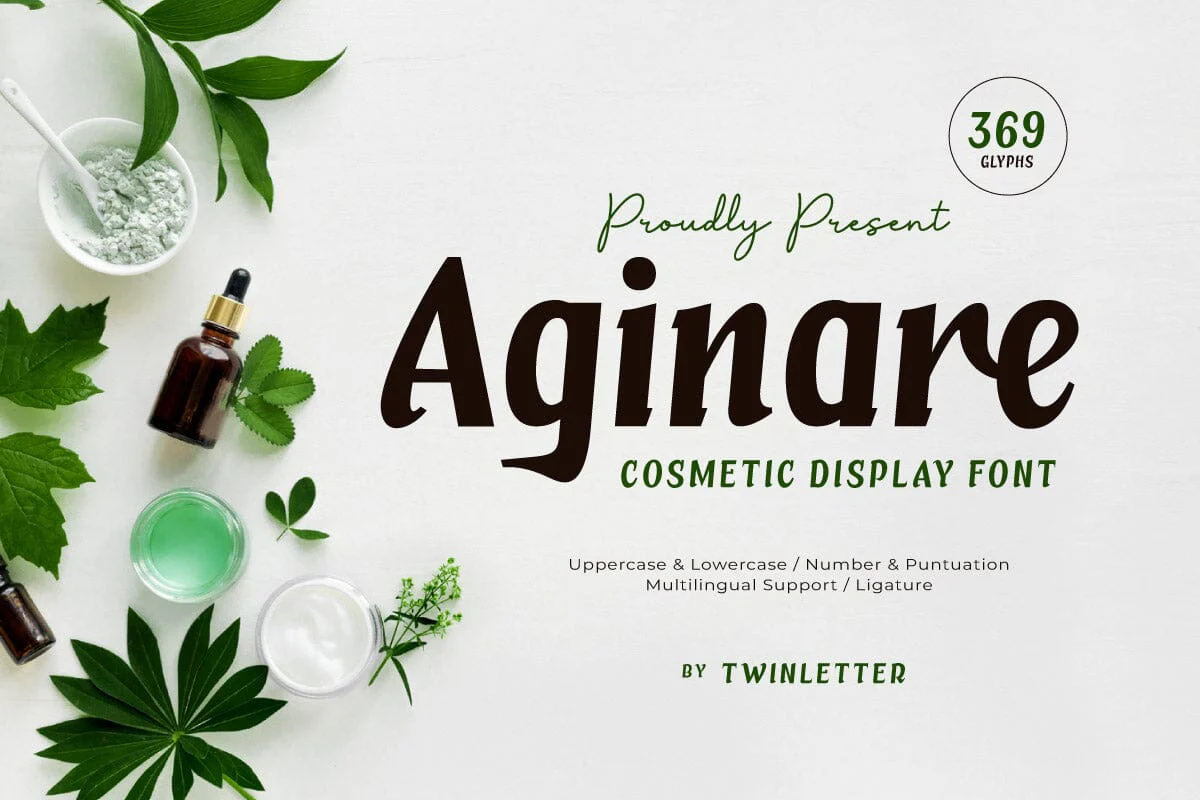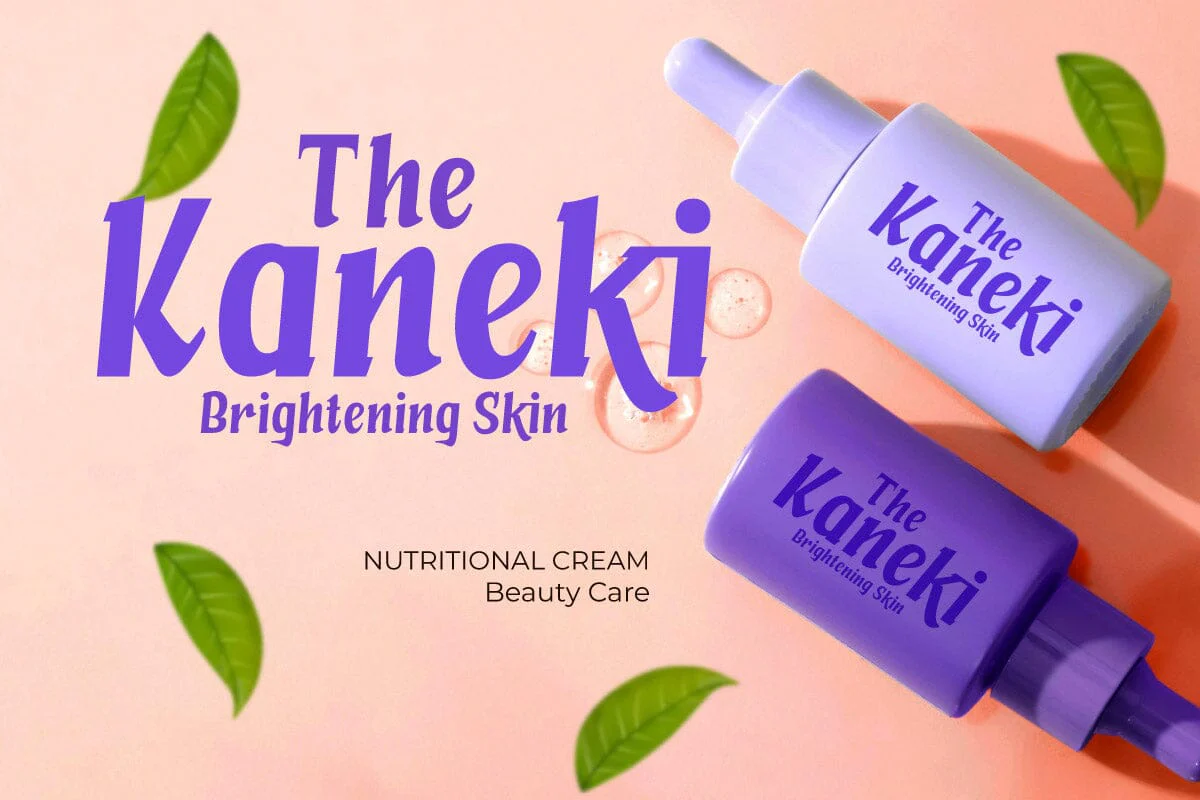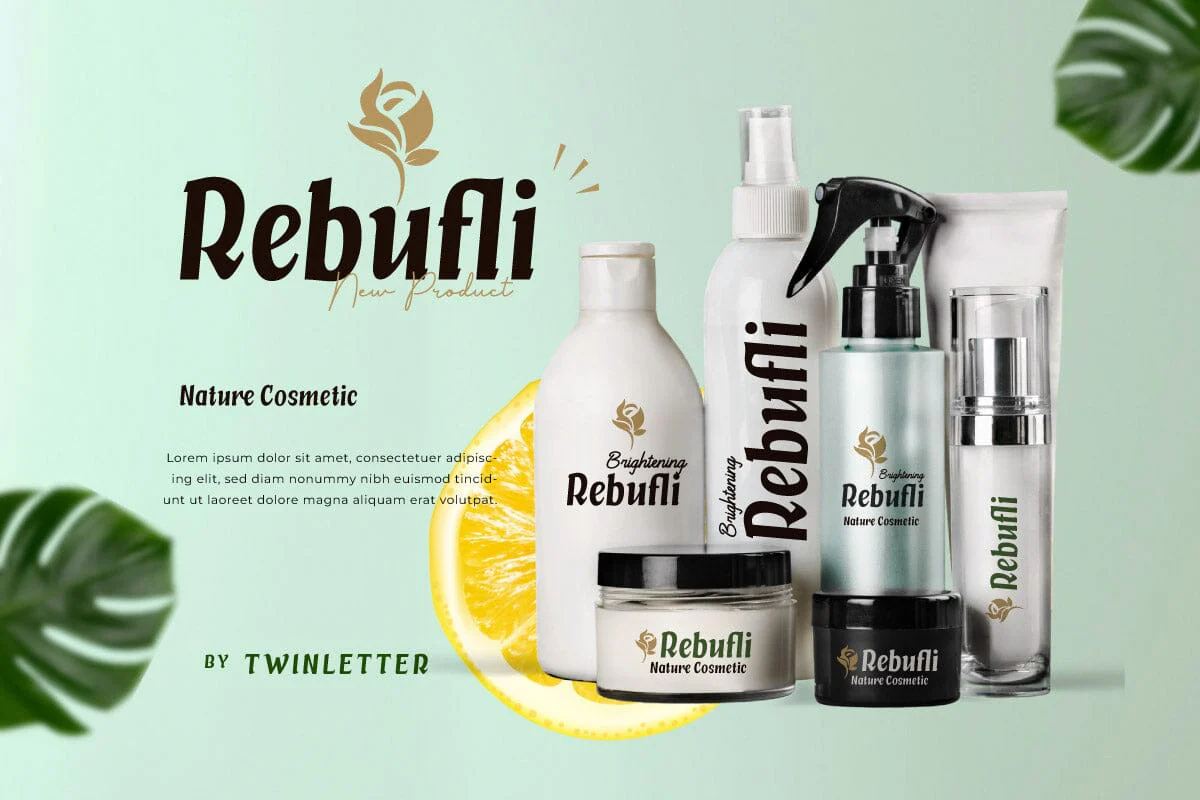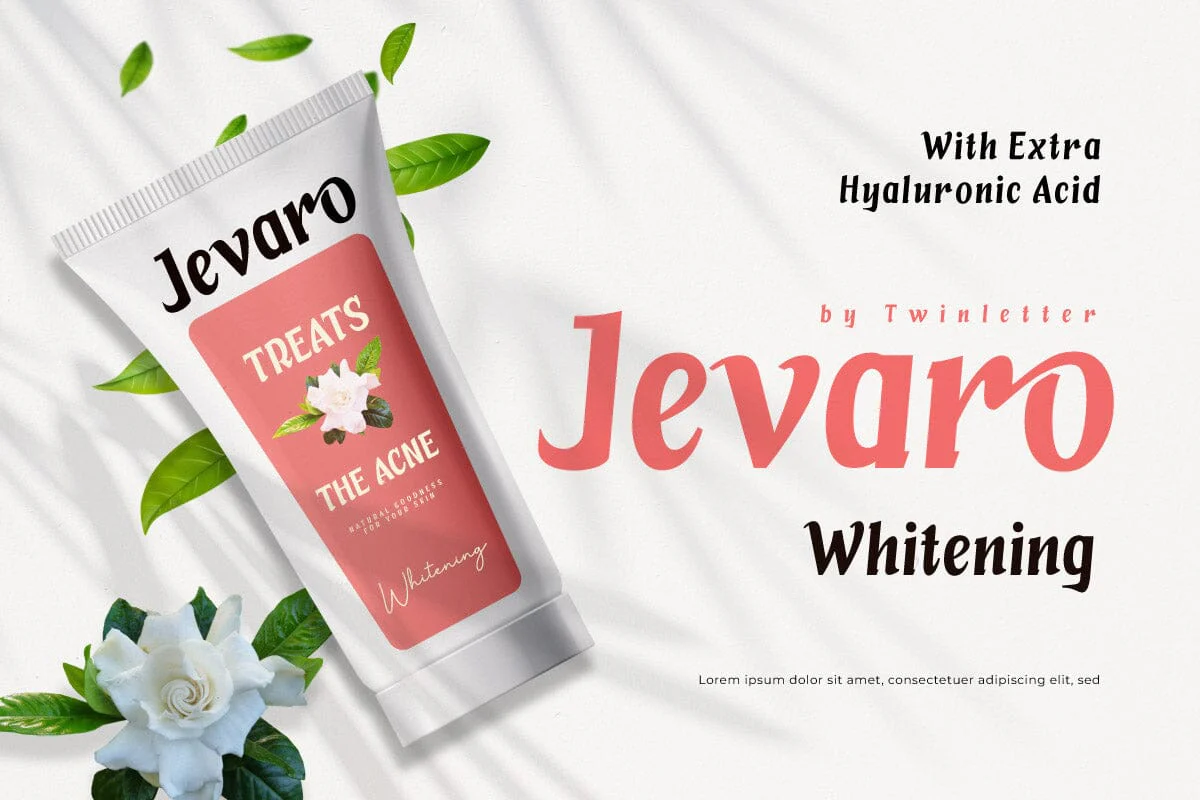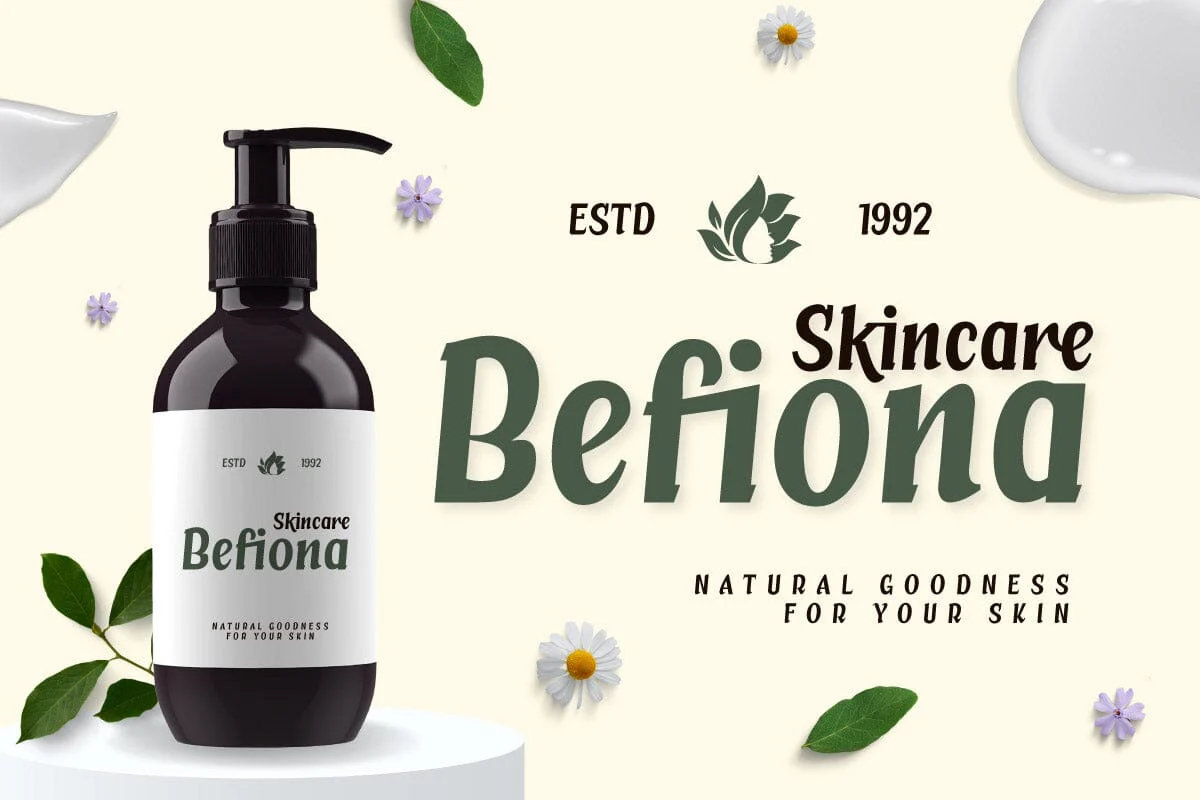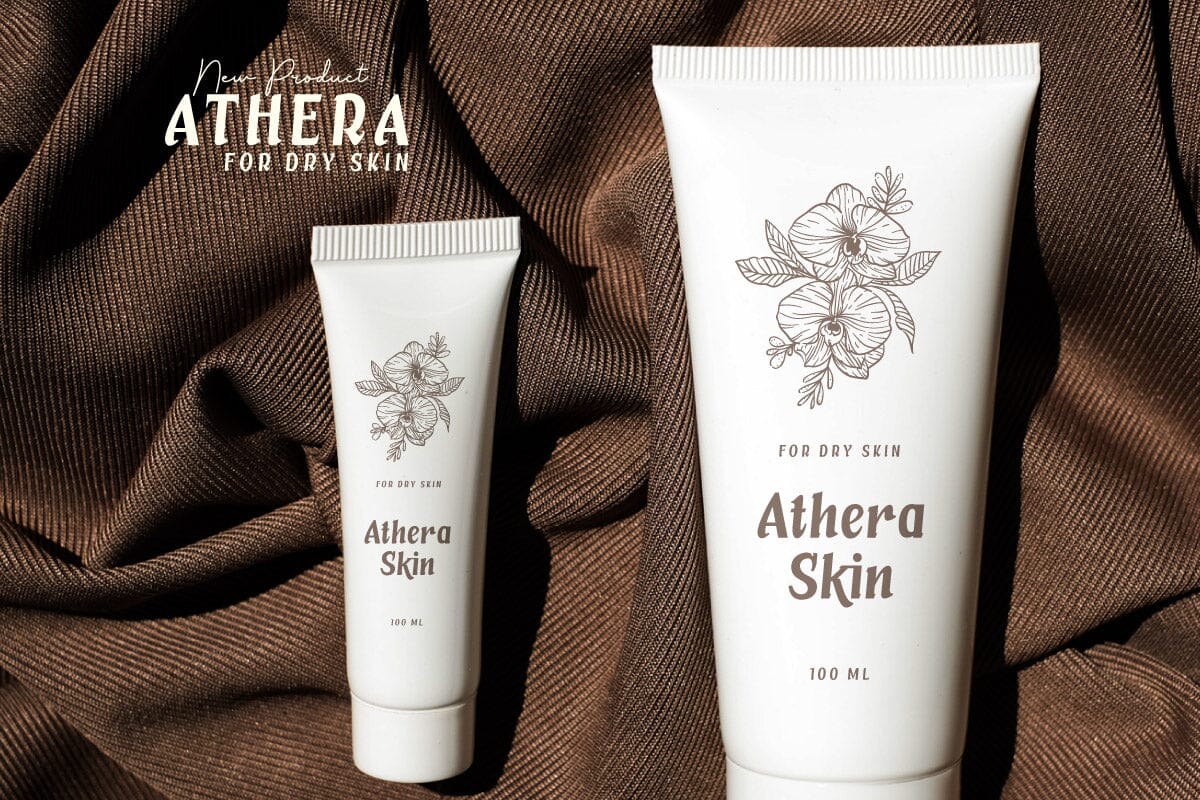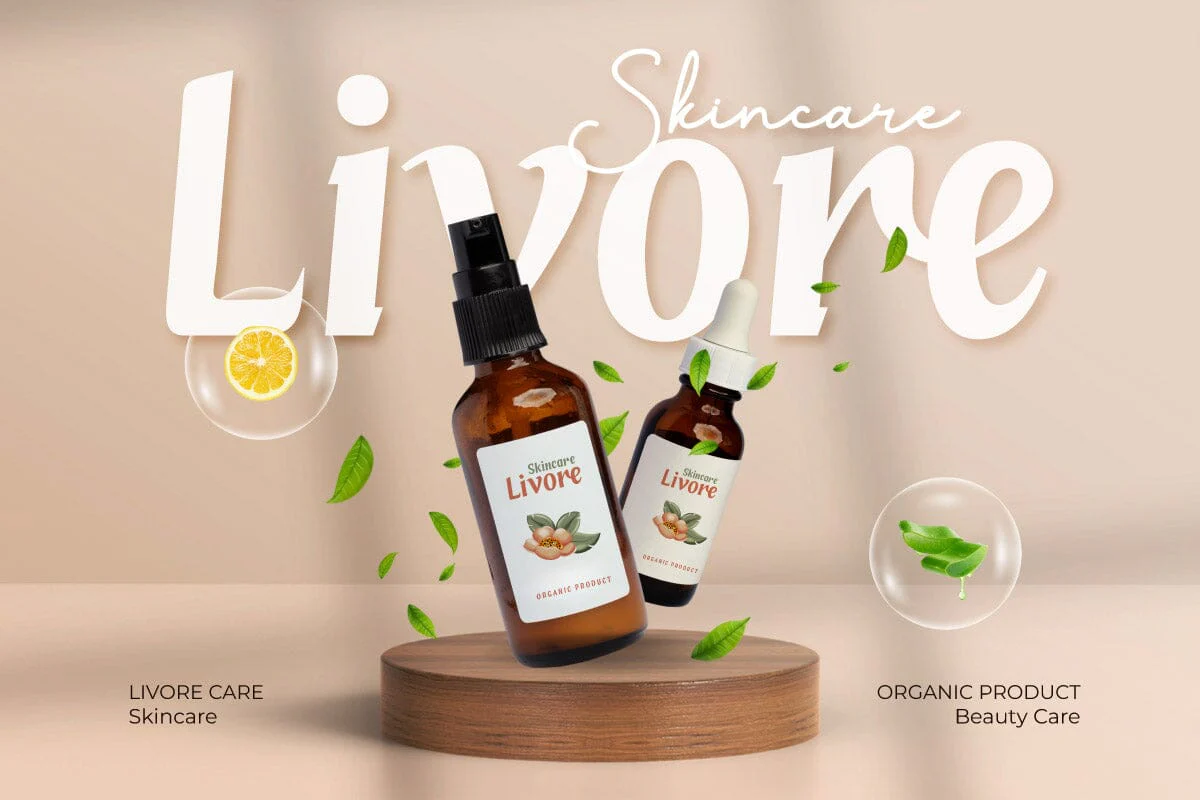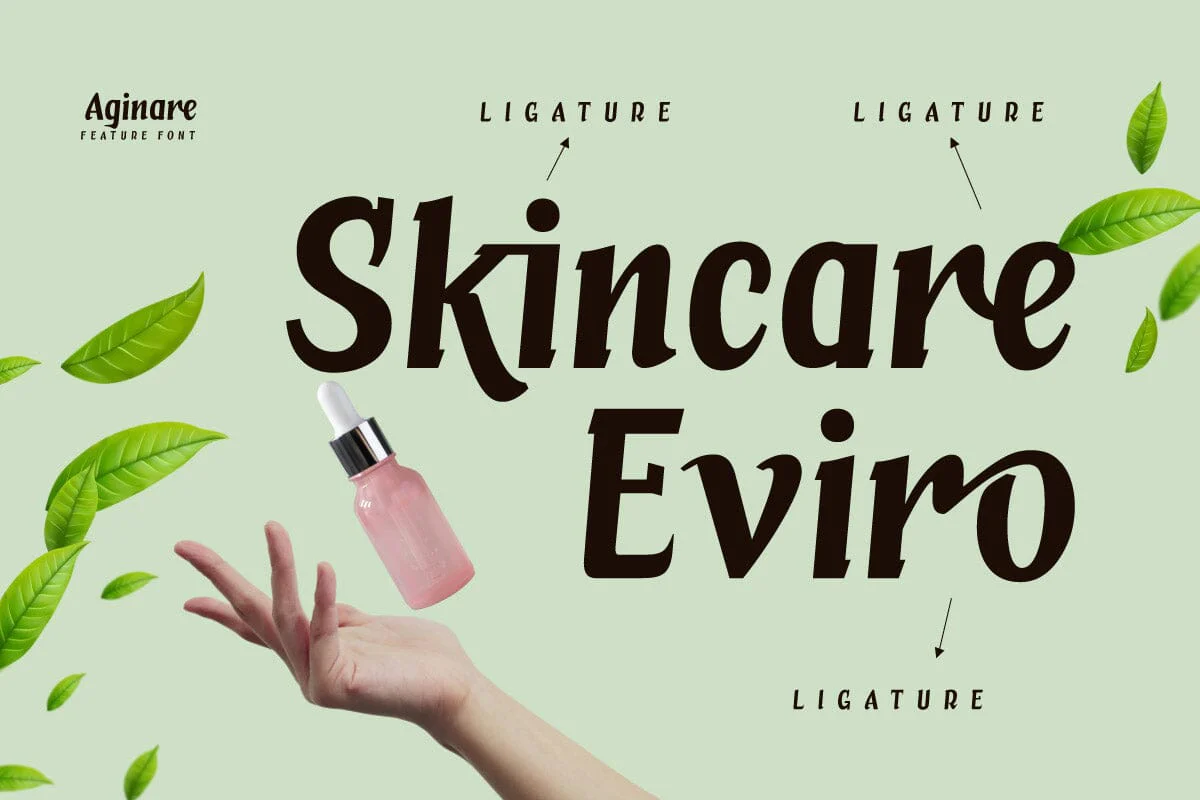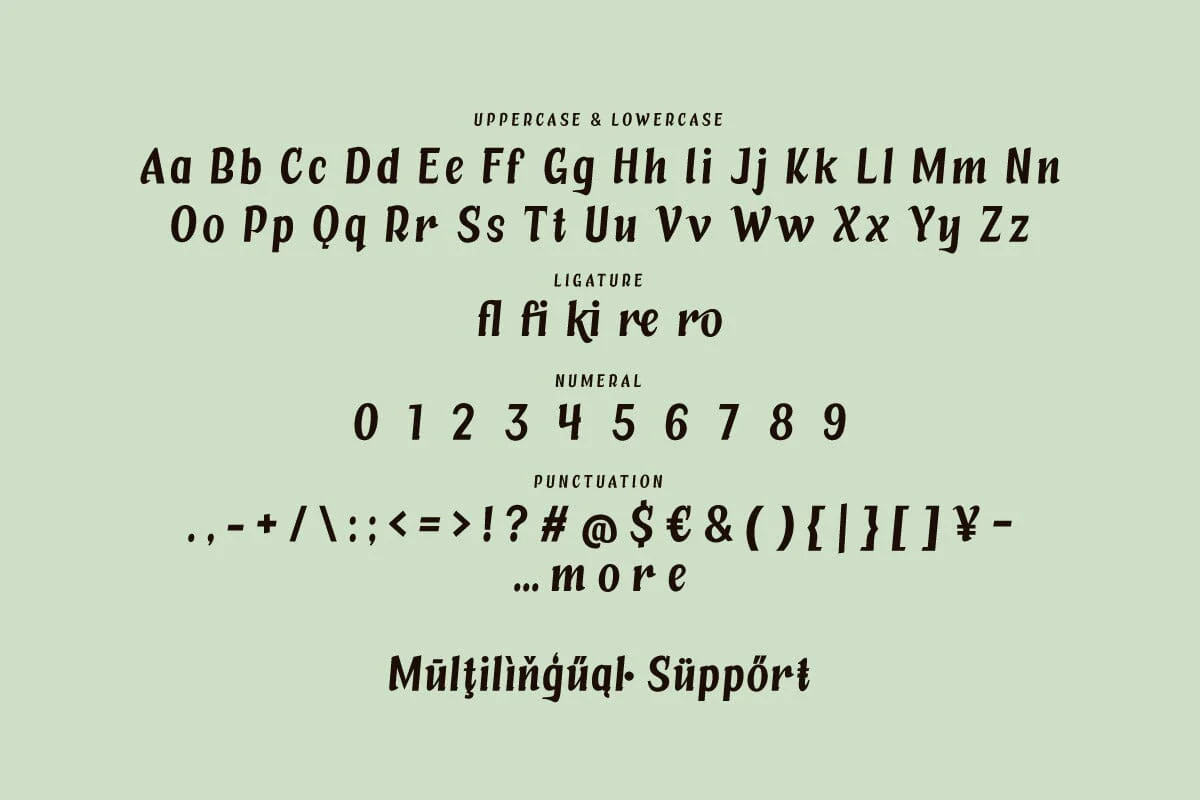
Aginare - Cosmetic Display Font
Unveil the elegance of Aginare, a Cosmetic Display Font designed to bring sophistication and beauty to your branding projects. Perfect for luxury cosmetics, skincare lines, and high-end beauty products, Aginare features refined letterforms that exude grace and style. The smooth curves and delicate details of each character are crafted to enhance the visual appeal of your packaging, advertisements, and promotional materials. Aginare's timeless design ensures that your brand stands out with a touch of class and elegance, making it the ideal choice for any beauty-centric project.